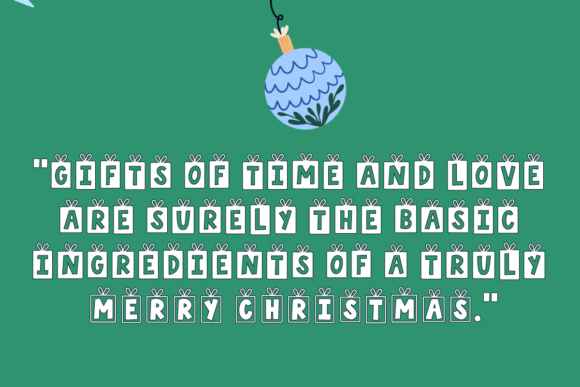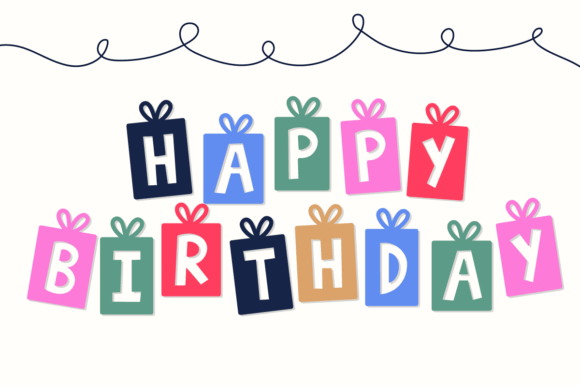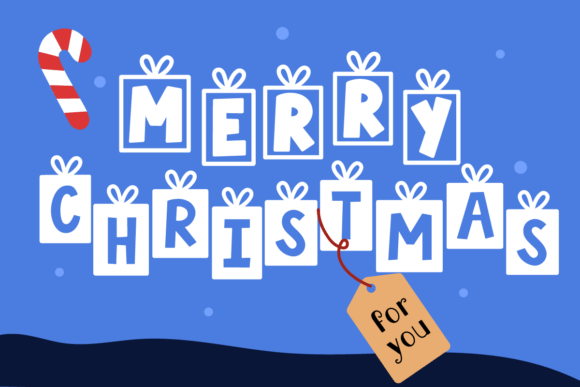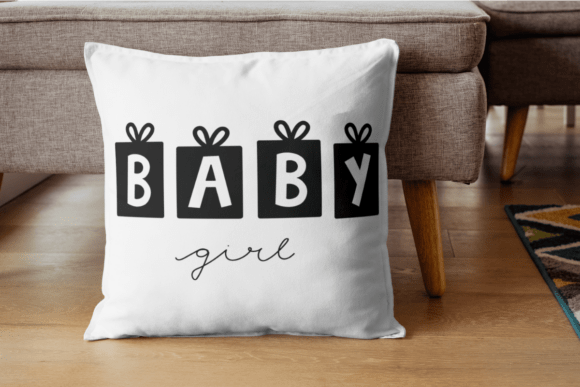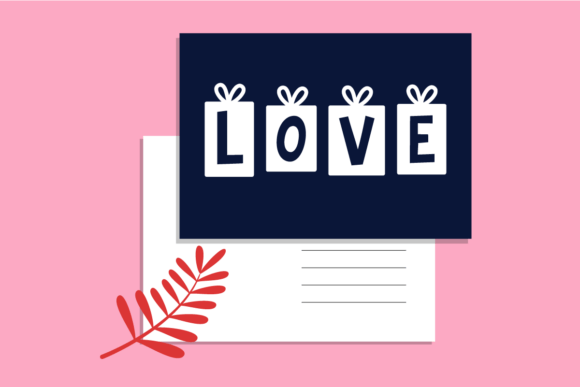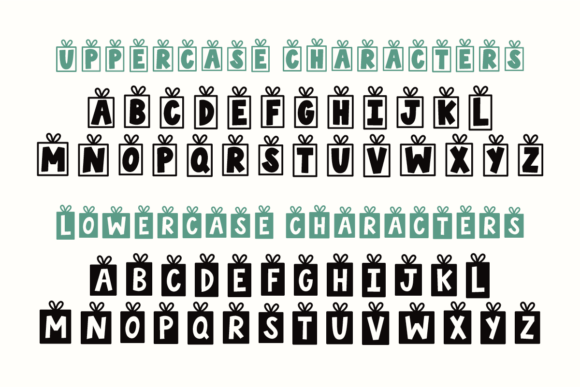
Introduction to Holiday Gifts Font
As you’re brainstorming ideas for your next creative project, the festive season is the perfect time to get inspired. Imagine the sound of jingling bells and the warmth of twinkling lights as you search for the perfect design resource to capture the holiday spirit. That’s where the Holiday Gifts Font comes in – a delightful and cheerful typeface that brings the magic of the season to your projects.
With its charming gift box-shaped letterforms, this unique font adds a playful twist to your designs, making them feel like they’re wrapped and ready for celebration. Whether you’re designing Christmas cards, holiday banners, or social media graphics, the Holiday Gifts Font is a valuable addition to your design arsenal. And the best part? It’s available for free download, so you can add a high-quality touch to your projects without breaking the bank.
Key Features of Holiday Gifts Font
- High-quality design for a creative project, ideal for holiday-themed materials
- Perfect for designers looking for a unique and festive design resource for their holiday gifts and packaging
Honest Review: Holiday Gifts Font
I recently had the opportunity to work with the Holiday Gifts Font, and I must say it’s been a game-changer for my creative project. The font is incredibly high quality, with smooth lines and a consistent feel throughout.
What works well: ✨ The font’s transparent background allows for seamless integration into any design, giving me the freedom to focus on other creative aspects of my project. The font also comes with a free download option, which is a huge plus. I’ve found it to be a valuable design resource that’s saved me time and effort.
The font’s style is festive and fun, making it perfect for holiday-themed designs. I’ve used it for various projects, from greeting cards to social media graphics, and it’s always delivered.
Limitations: ⚠️ While the font is generally versatile, it may not be the best choice for more formal or professional designs. Additionally, some users may find the font’s style a bit too festive for certain projects.
Overall, I’m thoroughly impressed with the Holiday Gifts Font. It’s a fantastic addition to any designer’s toolkit, and I highly recommend it for anyone working on a creative project that requires a high-quality, festive font.
Use the Holiday Gifts Font to create eye-catching graphics, posters, and flyers for your holiday promotions. Experiment with different font sizes and colors to add visual interest.
The Holiday Gifts Font is perfect for creating holiday-themed designs, such as gift tags, gift boxes, and holiday cards. You can also use it for social media graphics, email marketing campaigns, and website content.